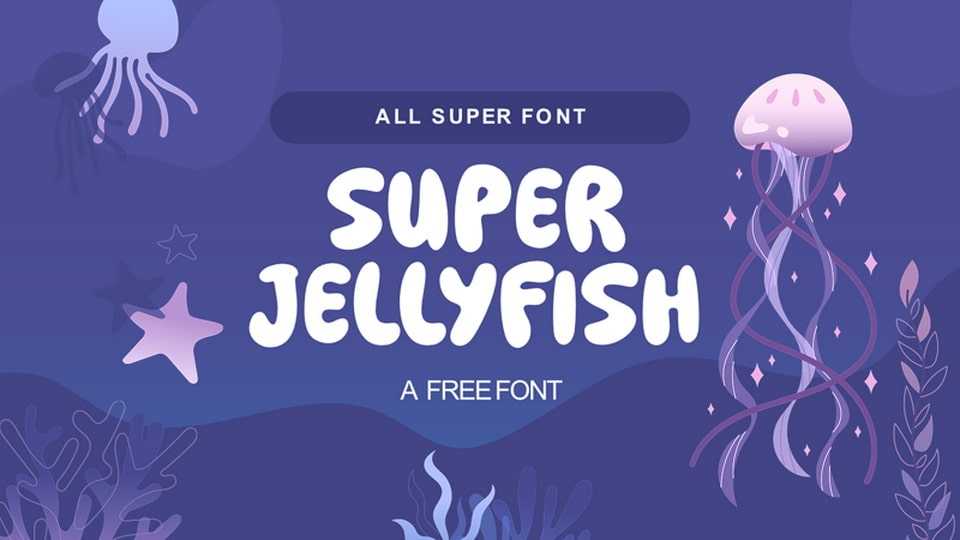
Download Super Jellyfish font, a playful and whimsical typeface that captures the charm of the ocean’s most graceful creatures with its light and airy design.